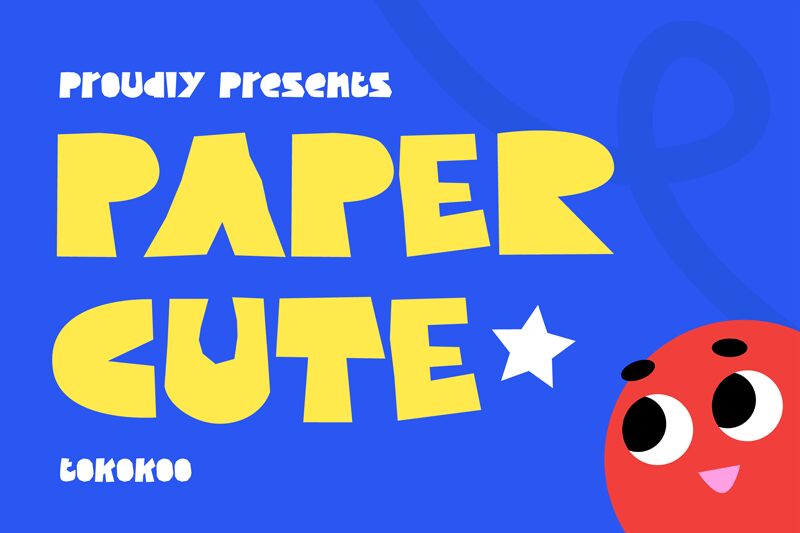
Papercute
Papercute font by Tokokoo Studio is a free cartoon display typeface. Its charm comes from chunky, cut-paper shapes that feel snipped with scissors—crisp edges, playful angles, and a lively bounce that reads like a handmade collage. Letters lock together with a bold, inky weight, giving headlines a tactile, crafty energy without getting messy.
Using Papercute, you’ll get instant personality on kids’ posters, birthday invites, classroom decor, craft packaging, playful logos, and YouTube thumbnails. The steady rhythm and generous forms stay legible at big sizes while keeping that snipped-from-cardstock vibe. For balance, pair this free font with a simple rounded sans for supporting text, and let Papercute take the headline at oversized scale.